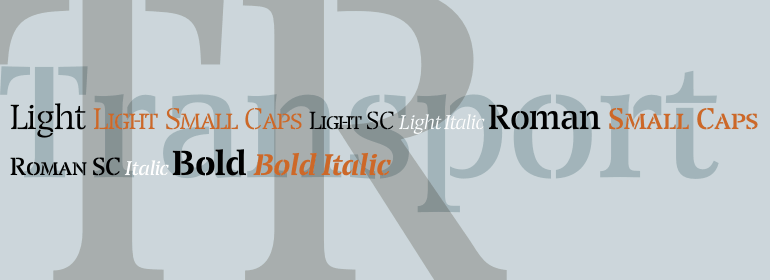
Transport™
The idea of Transport originates from text found on the large wooden boxes used for transport. Such text is still stencilled on them in the same way as the companies have done for decades, at least. That explains the typeface's name, too.
If you find some similarities with Devin, you are right. Transport is nothing other than a special variant of Devin. But since the two are aimed for totally different uses, I decided to use two different names for them.
Transport is a mecane and its use is primarily as a headline typeface. But in small quantities it can be used even for body setting, if special effects are desired.
Transport was released in 1994.